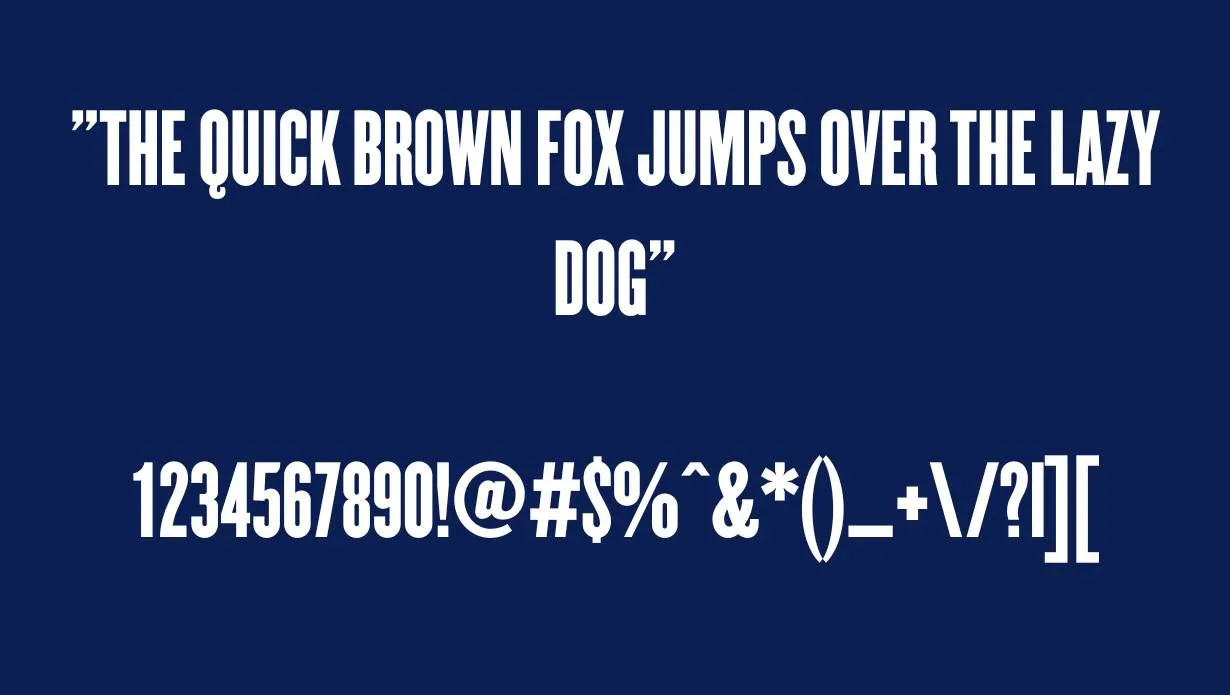
Champion Featherweight Font is inspired by sports and boxing typography. It’s often chosen for sports branding, posters, and designs that aim to evoke a sense of athleticism and competition.
The font adds an element of strength and energy to your design work. The typeface family is highly versatile and accommodating for numerous foreign languages, making it an ideal choice when paired with decorative fonts like Linik Sans Font.